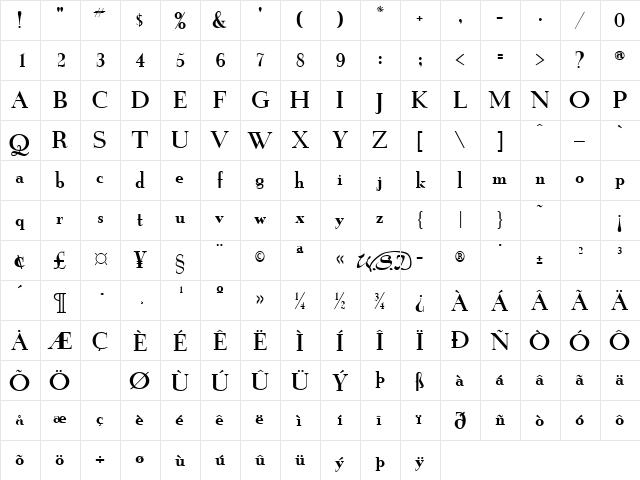
Grail-New Regular
Design Context for Grail-New Typeface
Grail-New offers clean, dependable letterforms without strong stylistic allegiance, making it a practical choice for designers who need flexibility.